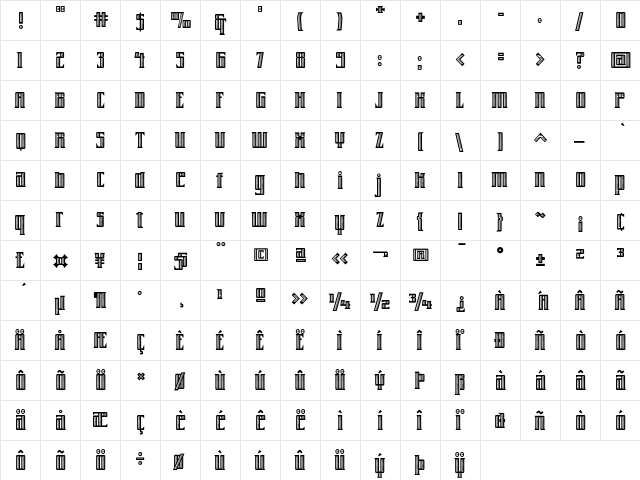
FarrierICG Shaded
Design Context for FarrierICG Typeface
FarrierICG is a composed and adaptable typeface that performs quietly and consistently across a wide range of design contexts.